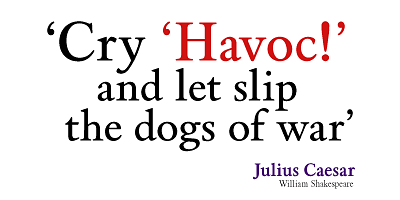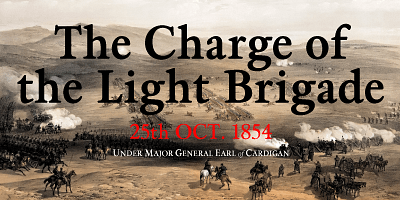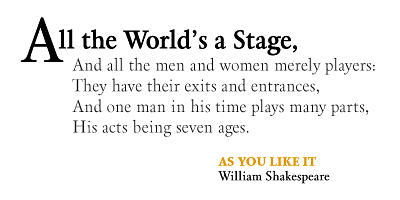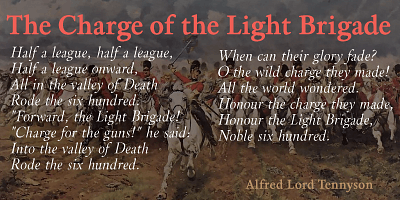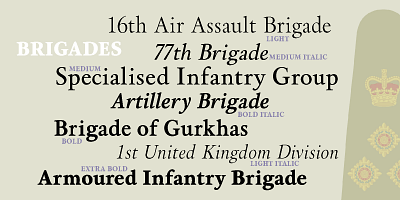
In searching for a Roman to use there were bits of Bembo, Times, Garamond etc. that I liked and bits that I did not. So I set out to take the best bits of all my favourite Romans and tried to create the ultimate Roman Typeface.